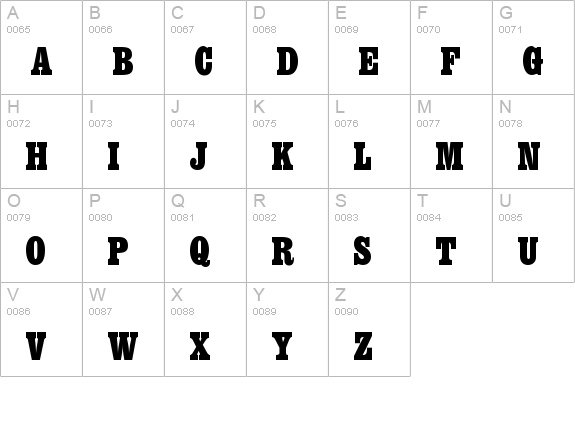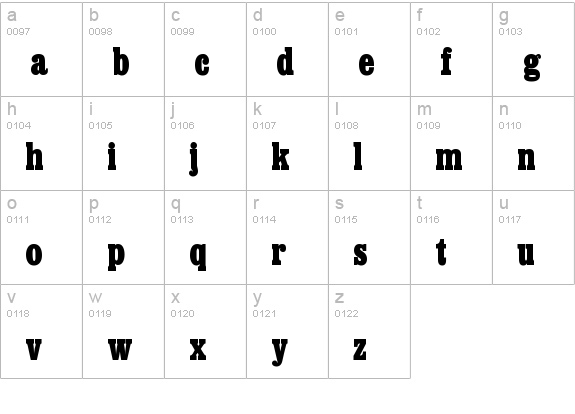
EgyptianCd-Regular is the standard, neutral variant in the EgyptianCd typeface family \xE2\x80\x94 well suited to general body text, paragraphs, and standard typographic work.
EgyptianCd-Regular is a classic and versatile font that is perfect for adding a touch of elegance to your projects. Its clean lines and timeless style make it suitable for a wide range of design applications, from branding to editorial design. The font features a unique blend of modern and traditional elements, giving it a distinctive and sophisticated look. What sets EgyptianCd-Regular apart is not only its aesthetic appeal but also its accessibility. This font is available for free download at FontsMarket.com, making it a valuable resource for designers and creatives looking to enhance their work without breaking the bank. Whether you're designing a logo, creating a poster, or developing a website, EgyptianCd-Regular is sure to elevate your design with its refined charm and effortless readability. Don't miss out on the opportunity to add EgyptianCd-Regular to your font collection today. Download it for free at FontsMarket.com and start exploring the endless possibilities this font has to offer.